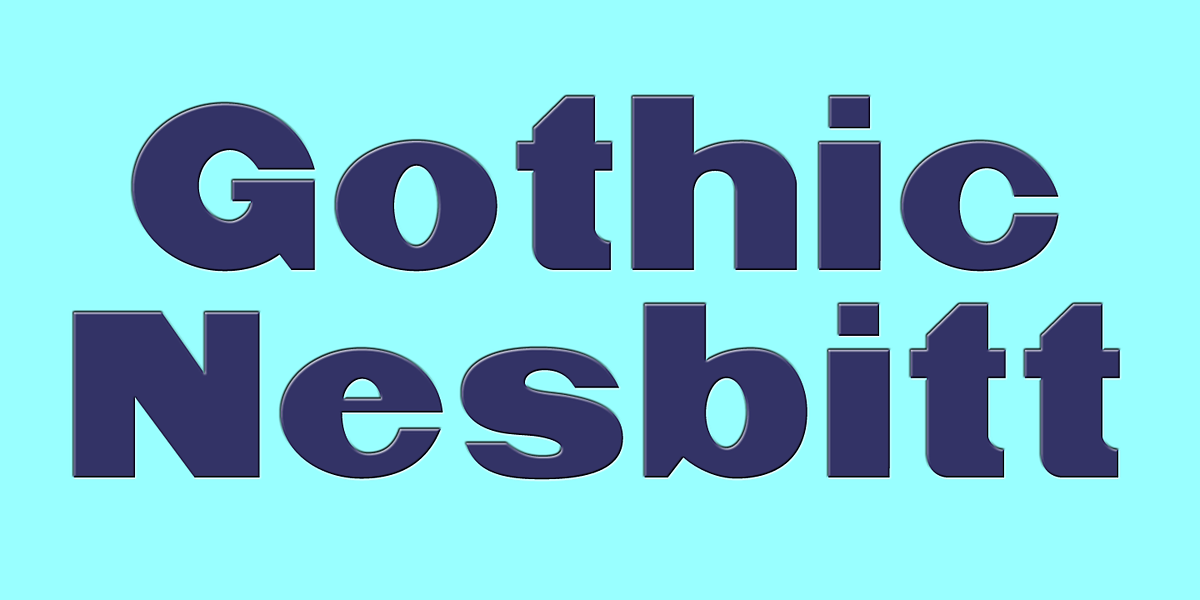
Gothic Nesbitt
Gothic Nesbitt is a bold and striking sans serif font designed for display purposes. Its origins date back to around 1889, giving it a distinctly vintage feel. The heavy weight and geometric forms make it suitable for headlines, posters, and other applications where strong visual impact is desired.